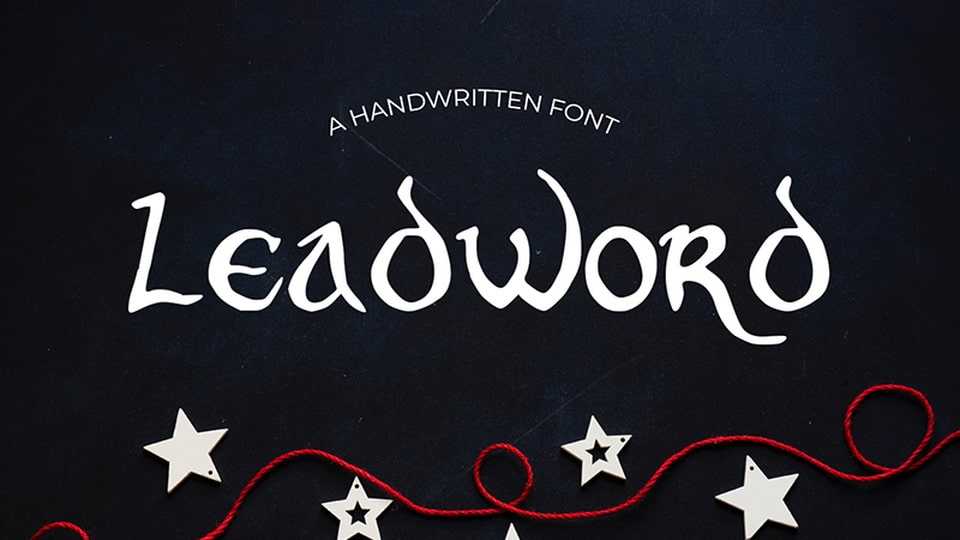
Download Leadword font, a fancy typeface with a unique, detailed, and handmade look. Leadword font looks amazing in short texts and messages for a classy appearance.